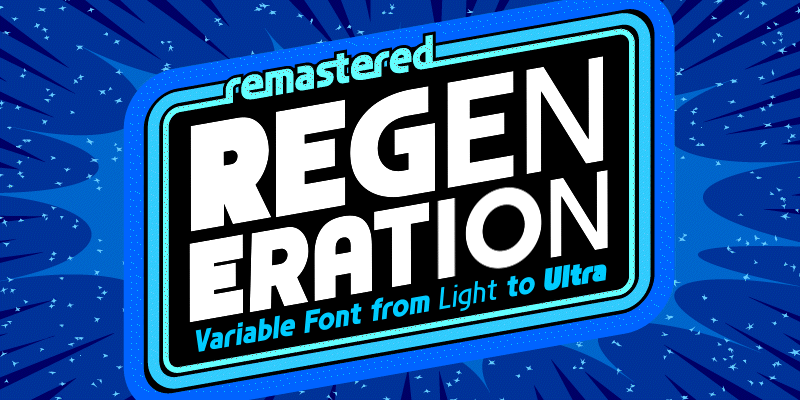
CC Regeneration Variable Font Free Download is a modern, versatile sans-serif typeface with clean lines, geometric shapes, and a contemporary design. This font is perfect for a wide range of design applications, including branding, editorial layouts, websites, signage, and other creative projects that require clarity, versatility, and a stylish edge.
The CC Regeneration Variable Font offers the flexibility of adjusting the font’s weight and style, making it an ideal choice for projects that need both functional and aesthetic versatility. Whether you need a thin, elegant design for body text or a bold, striking look for headlines, this font adapts to your needs with ease.